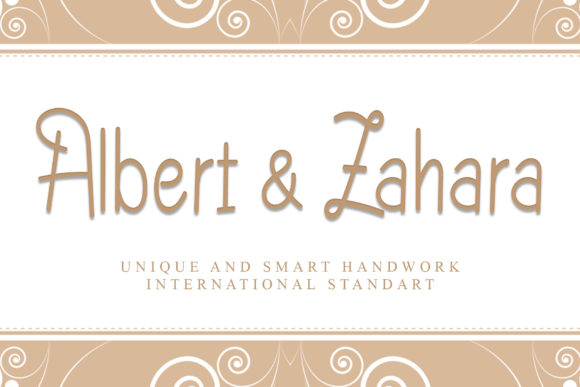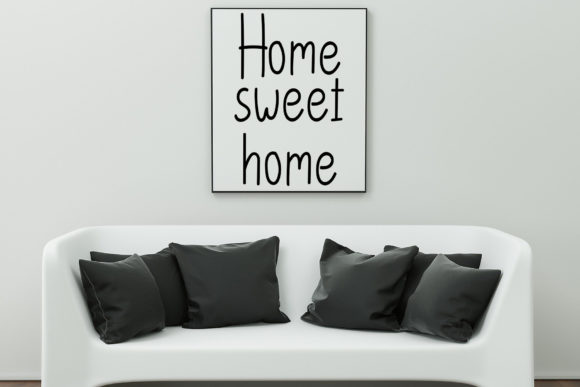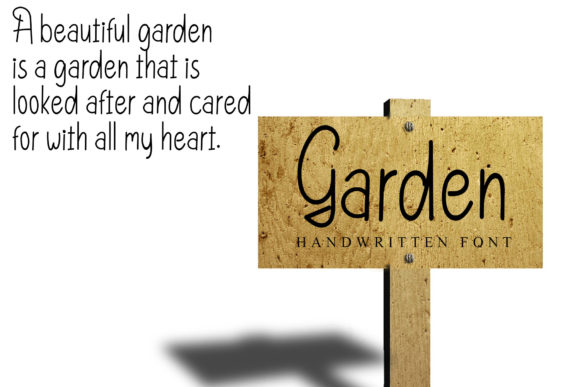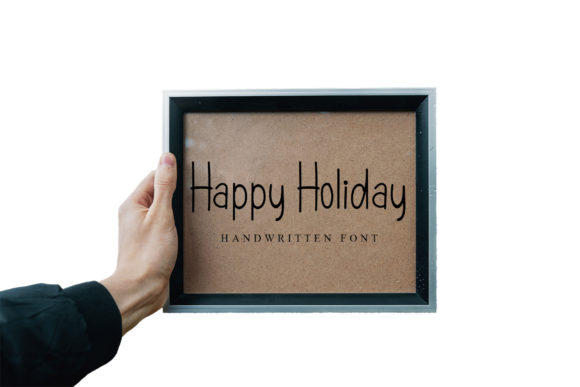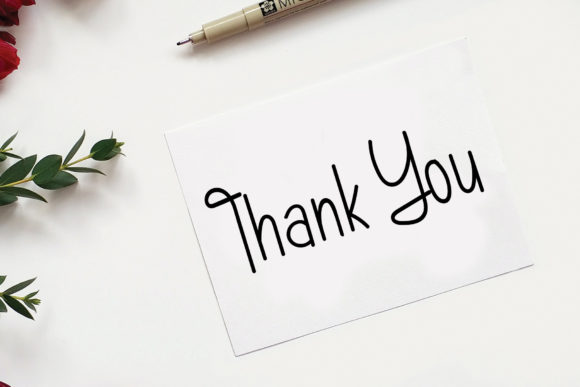
Albert Zahara Font
About Albert Zahara Font
Albert Zahara is a charming and whimsical handwritten font that adds a touch of cuteness and playfulness to your designs. With its dainty and lively style, this font is a fantastic choice for adding a vibrant and cheerful look to your projects. Whether you’re creating invitations, greeting cards, posters, branding, social media graphics, or any other design, Albert Zahara brings a delightful and uplifting vibe to your typography.
The cute and whimsical nature of Albert Zahara is evident in its carefully crafted letterforms. The playful curves and unique character shapes give this font a distinct and lively personality. It exudes a sense of joy and positivity, making it perfect for projects that aim to evoke happiness and capture the attention of viewers.
Albert Zahara’s dainty and lively style lends itself well to various design themes. It can be used for children’s projects, such as book covers, educational materials, or party invitations, where its cute and playful nature resonates with young audiences. Additionally, it can bring a touch of whimsy to designs for products targeting a youthful or fun-loving demographic.
The versatility of Albert Zahara extends to its usage in branding, social media posts, and website designs. It can be employed for headlines or titles, where its charming and whimsical style stands out and adds a touch of personality. It can also be used for body text or captions, infusing your written content with a lively and engaging vibe.
With Albert Zahara in your font collection, you have a delightful asset that can brighten up your designs and evoke a sense of joy. Its cute and whimsical style makes it a wonderful choice for various projects, allowing you to add a touch of life and playfulness to your visual communication. Whether you’re designing for print or digital media, Albert Zahara brings a dainty and lively charm that captivates and brings smiles to the faces of your audience.
In summary, Albert Zahara is a cute, whimsical, and dainty handwritten font that adds a vibrant and playful look to your designs. With its sweet and lively style, it brings a delightful charm to any project. Whether you’re creating invitations, branding, social media graphics, or other designs, Albert Zahara infuses your typography with a sense of joy and positivity. Its versatility allows it to shine in children’s projects as well as in branding and digital media.